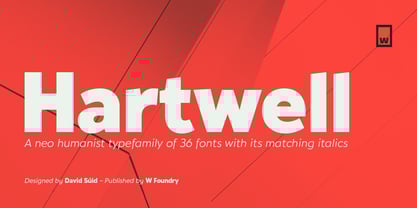
Hartwell Font
Hartwell Font is perfect for traditional academic institutions, prestigious boarding schools, British heritage brands, classical library systems, scholarly publications, and distinguished educational materials. This refined typeface excels in university communications, traditional publishing houses, formal academic ceremonies, and any application where intellectual tradition and scholarly excellence create lasting impressions of educational distinction.
What makes Hartwell Font so exciting is its exceptional ability to convey academic authority and intellectual heritage through letterforms that embody centuries of educational tradition and scholarly achievement. The font features balanced proportions, scholarly elegance, and authoritative character shapes that reflect the dignity of established learning institutions. Its distinguished presence makes it perfect for organizations that value educational excellence and intellectual rigor.
Hartwell Font comes in a scholarly family including Light, Regular, Medium, Bold, and Heavy weights. Each style features complete uppercase and lowercase character sets, academic symbols, traditional numerals, and scholarly punctuation marks. The font family also includes small caps, old-style figures, and educational ligatures that provide designers with comprehensive tools for creating distinguished academic communications with institutional authority.
The font's scholarly character makes it particularly effective for universities, research institutions, traditional schools, and academic publishers. Its superior legibility ensures that Hartwell Font maintains clarity while projecting maximum intellectual authority and preserving its distinctive educational personality. The font's ability to inspire confidence and communicate scholarly excellence makes it an invaluable foundation for any project requiring typography that embodies the highest standards of educational tradition and represents the enduring pursuit of knowledge and academic achievement.